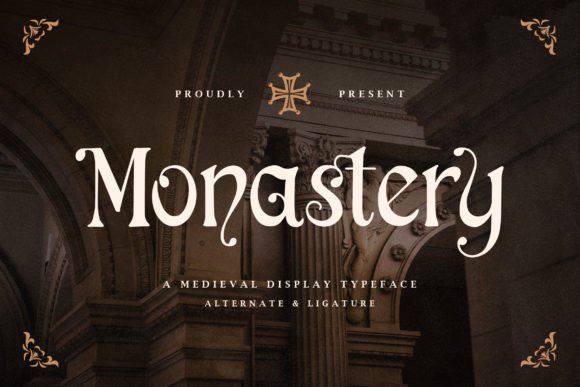
Introducing Monastery Font: A Medieval-Inspired Display Font
The world of typography is vast and diverse, with countless font styles to choose from, each with its unique character and charm. If you’re looking for a font that can add a touch of history and elegance to your projects, look no further than Monastery Font. This fun and interesting display font is inspired by medieval Gothic-looking letter types, making it perfect for historical-themed projects.
What is Monastery Font?
Monastery Font is a display font designed to evoke the spirit of medieval times. Its unique, Gothic-inspired letterforms are reminiscent of ancient manuscripts and stone carvings, giving it a distinctive and captivating look. The font is perfect for headlines, titles, and short paragraphs, making it an excellent choice for a variety of projects, from historical dramas to fantasy novels.
Key Features of Monastery Font
- Medieval-inspired design: Monastery Font is inspired by traditional Gothic letterforms, giving it a unique and authentic look.
- Display font: Designed specifically for display purposes, Monastery Font is perfect for headlines, titles, and short paragraphs.
- Unique letterforms: The font features distinctive letterforms, including intricate serifs and ornate details.
- Historical feel: Monastery Font is perfect for projects that require a historical or medieval touch.
Ideas for Using Monastery Font
Monastery Font is a versatile font that can be used in a variety of projects. Here are some ideas to get you started:
- Historical dramas: Use Monastery Font to create titles, posters, and marketing materials for historical dramas, period pieces, or medieval-themed movies.
- Fantasy novels: Add a touch of medieval magic to your fantasy novel covers, titles, and chapter headings with Monastery Font.
- Event branding: Use Monastery Font to create eye-catching event branding, including medieval-themed festivals, renaissance fairs, or historical reenactments.
- Advertising: Add a touch of history and elegance to your advertising campaigns with Monastery Font.
Typography Tips for Using Monastery Font
To get the most out of Monastery Font, here are some typography tips to keep in mind:
- Use it sparingly: Monastery Font is a display font, so use it sparingly to create visual impact.
- Pair it with a serif font: Pair Monastery Font with a serif font for body text to create a nice contrast.
- Experiment with colors: Monastery Font looks great in a range of colors, from rich golds and reds to deep blues and purples.
- Play with textures: Add texture to your design by combining Monastery Font with textures, such as parchment or stone.
The Benefits of Using Monastery Font
Monastery Font offers a range of benefits, including:
- Unique look: Monastery Font has a distinctive, one-of-a-kind look that will set your project apart.
- Historical authenticity: The font’s medieval inspiration adds a touch of historical authenticity to your project.
- Elegance and sophistication: Monastery Font adds a touch of elegance and sophistication to any project.
- Flexibility: The font can be used in a range of projects, from titles and headlines to posters and marketing materials.
Monastery Font is a unique and captivating display font that is perfect for historical-themed projects. With its medieval-inspired design, distinctive letterforms, and elegant feel, it’s an excellent choice for anyone looking to add a touch of history and sophistication to their work. Whether you’re working on a historical drama, fantasy novel, or advertising campaign, Monastery Font is sure to make a lasting impression.